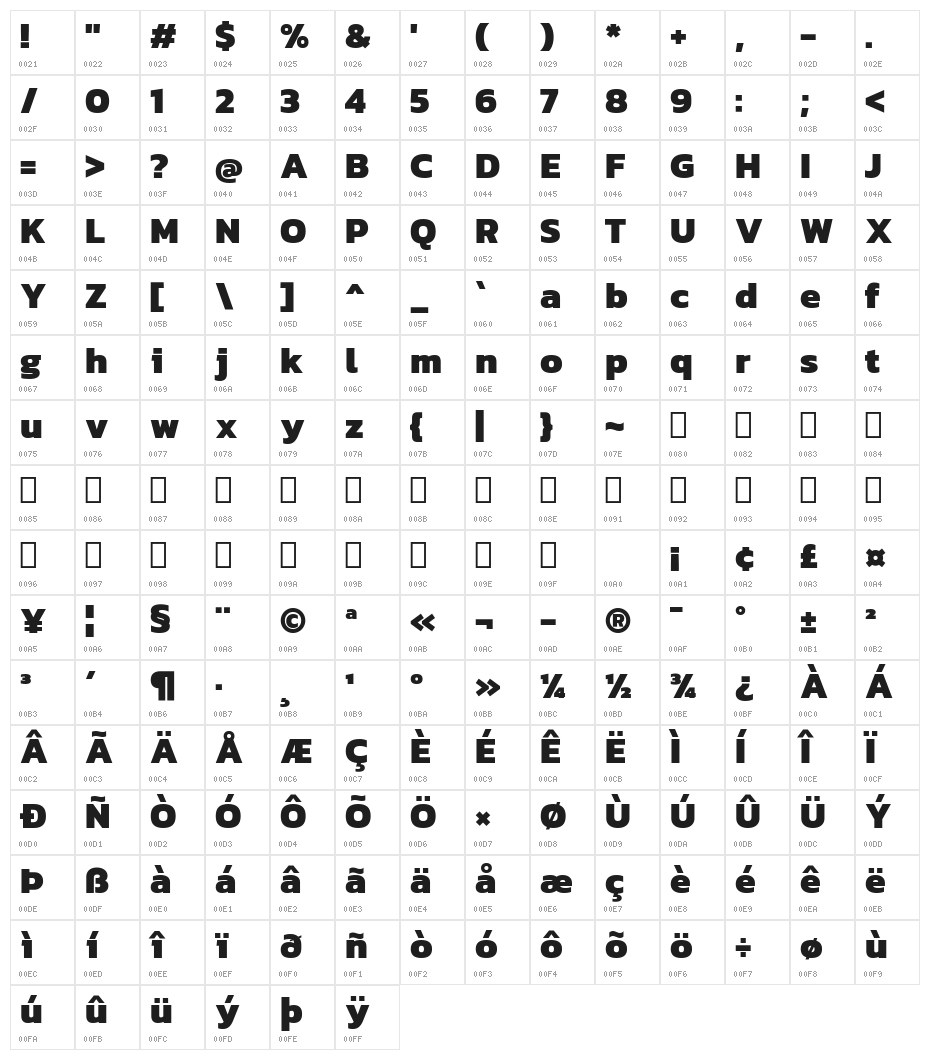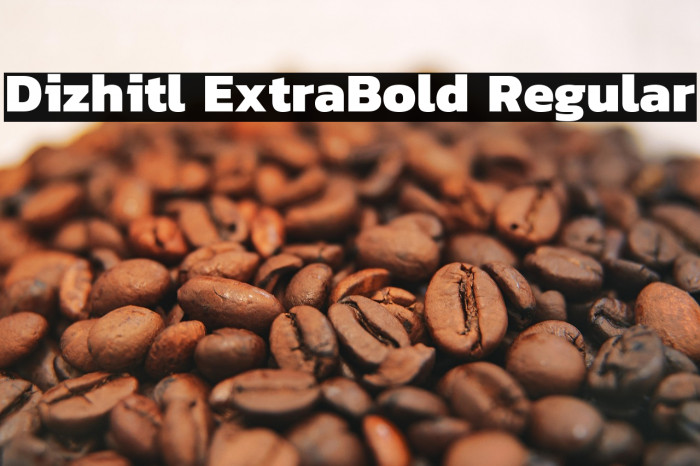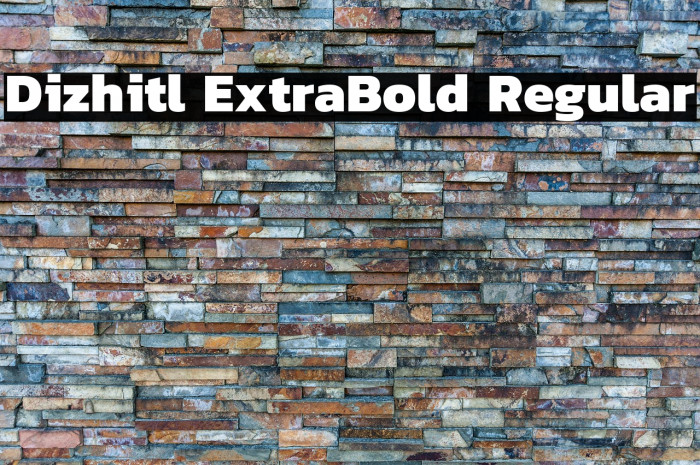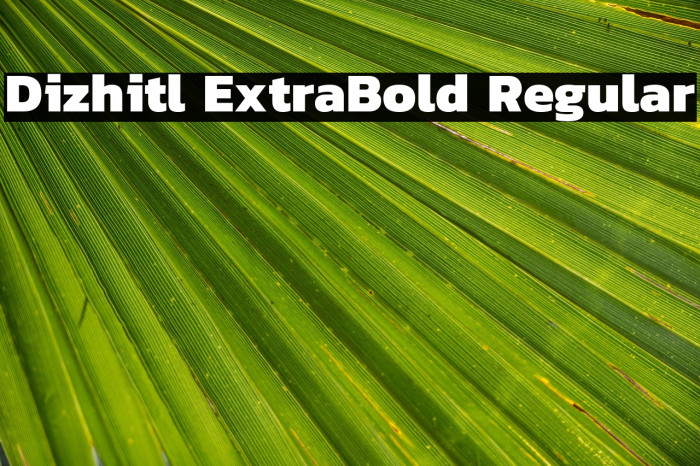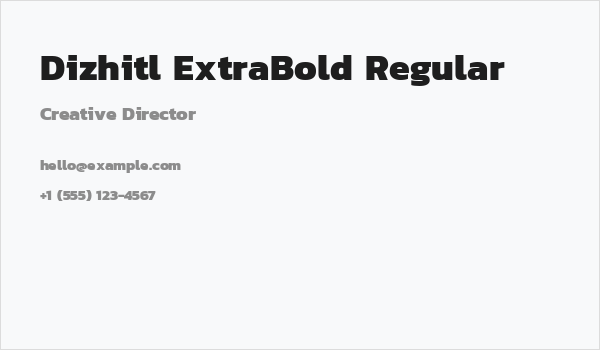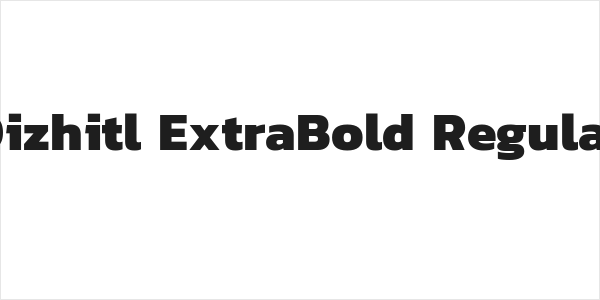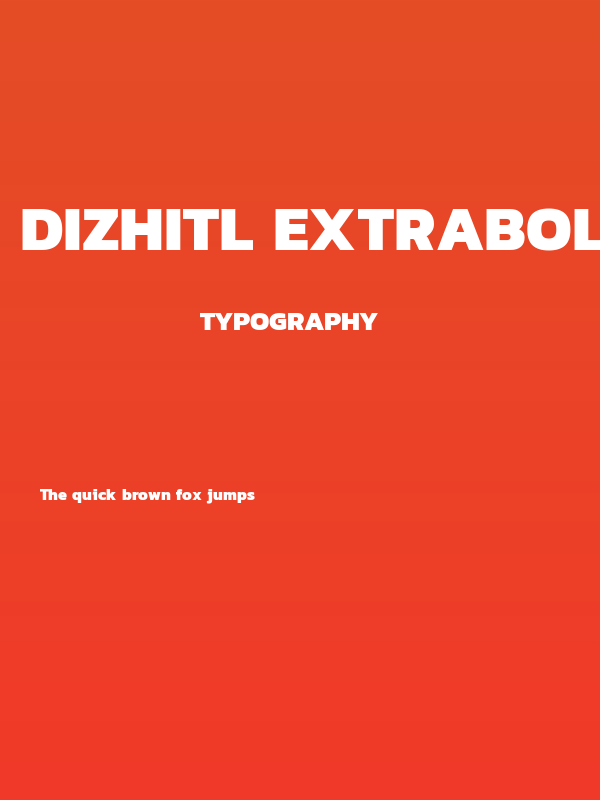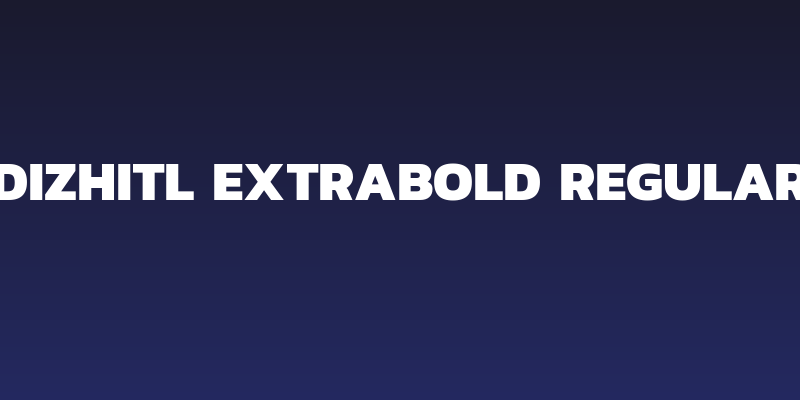
Dizhitl ExtraBold Regular Font
Dizhitl ExtraBold Regular Description
This font is a bold, impactful typeface with a strong presence. Its thick, uniform strokes and geometric shapes give it a modern and assertive look. The uppercase letters are particularly striking, with a blocky, solid appearance that commands attention. The lowercase letters maintain the same boldness, ensuring consistency across text. Numbers and special characters are equally robust, making this font suitable for a variety of applications where clarity and emphasis are needed. The overall design is clean and straightforward, with no unnecessary embellishments, allowing it to convey messages powerfully and directly.
| Proposed Projects | Ideal for headlines, posters, branding, and advertising where a strong, clear message is essential. |